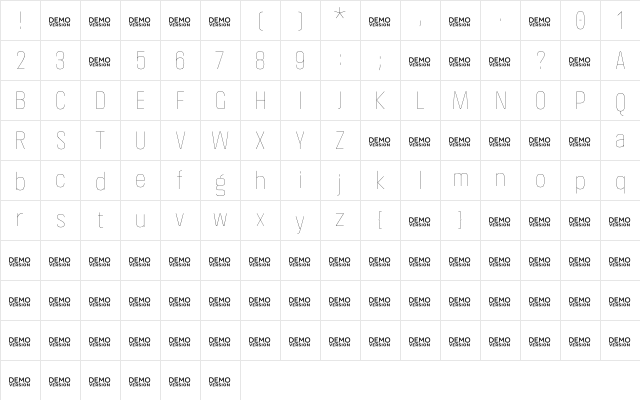
Crossfit Demo Hairline
| Designer | Anita J߲geleit |
Design Context for Crossfit Demo Typeface
Crossfit Demo is a composed and adaptable typeface that performs quietly and consistently across a wide range of design contexts. Its slender proportions lend an understated elegance to any composition.